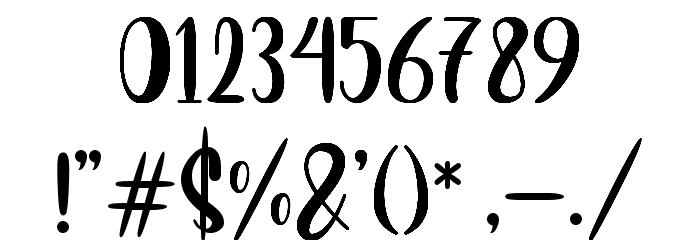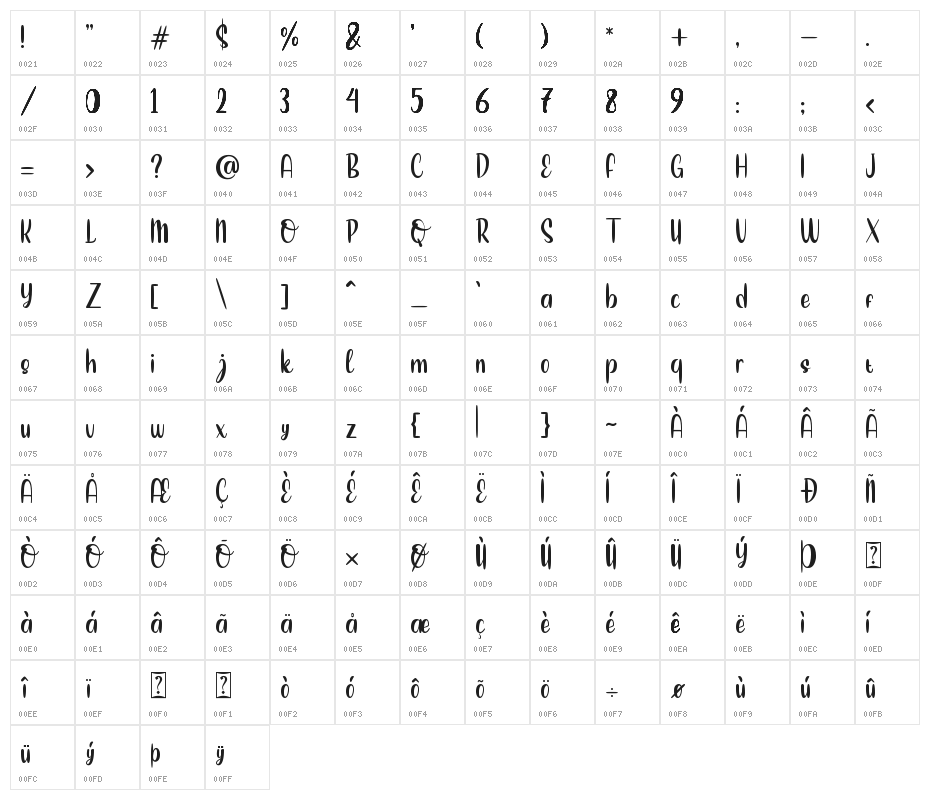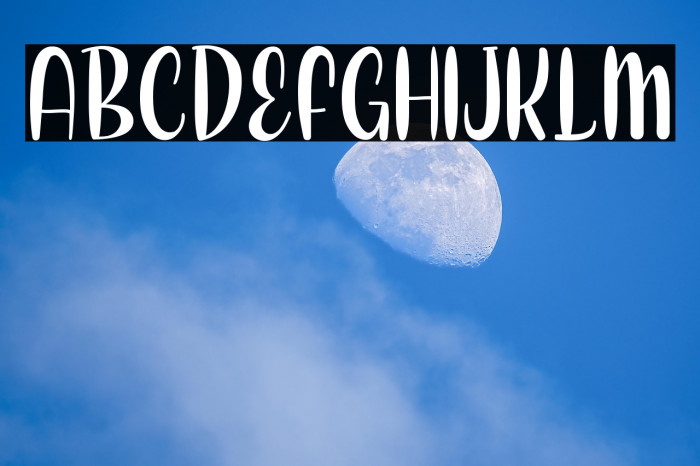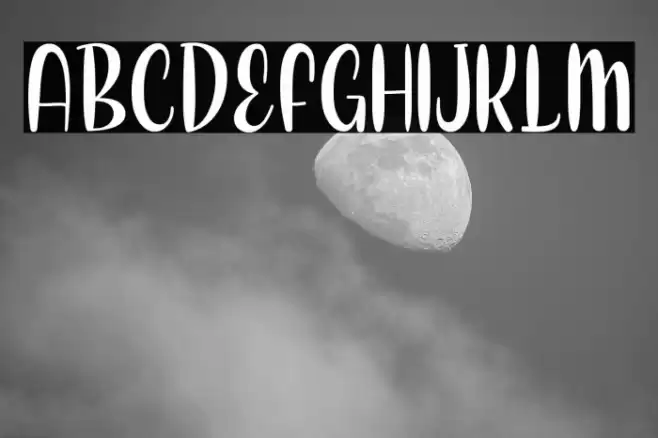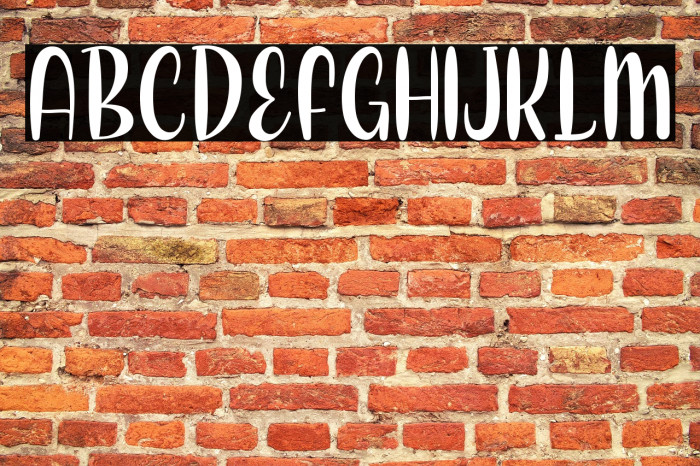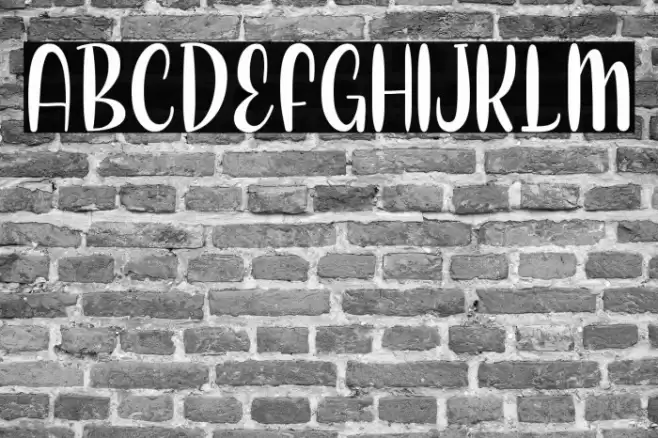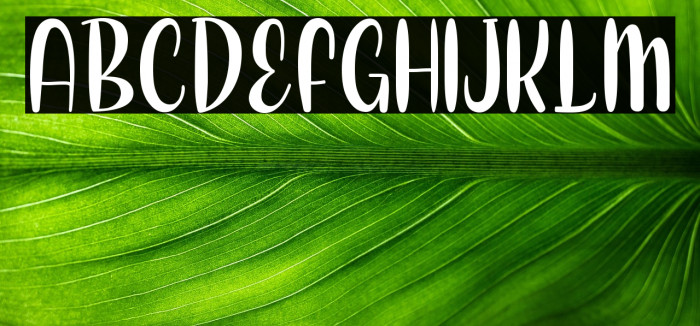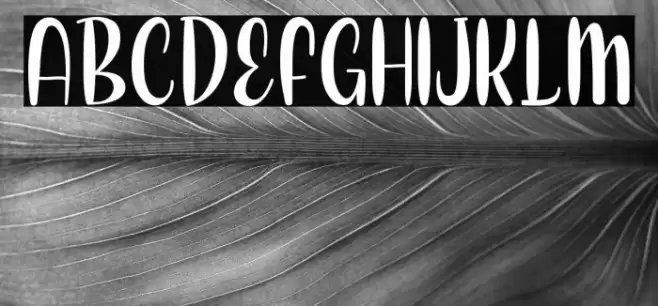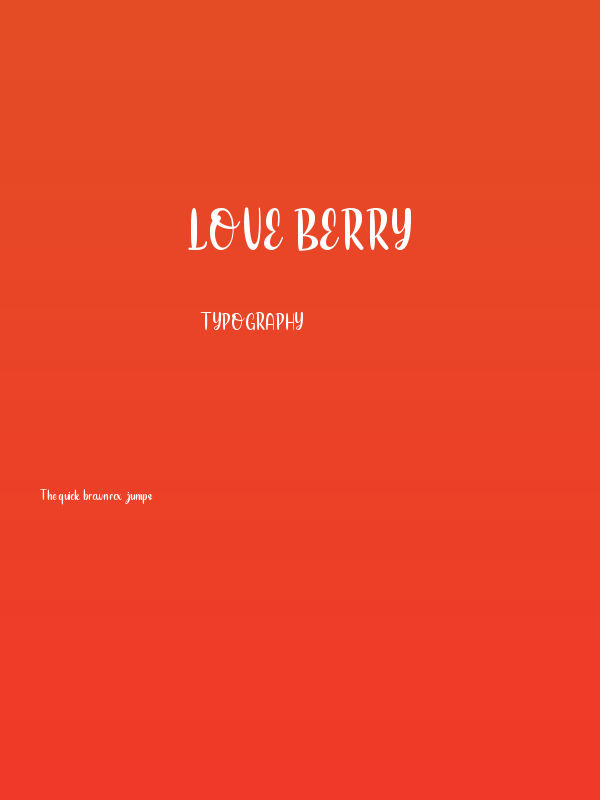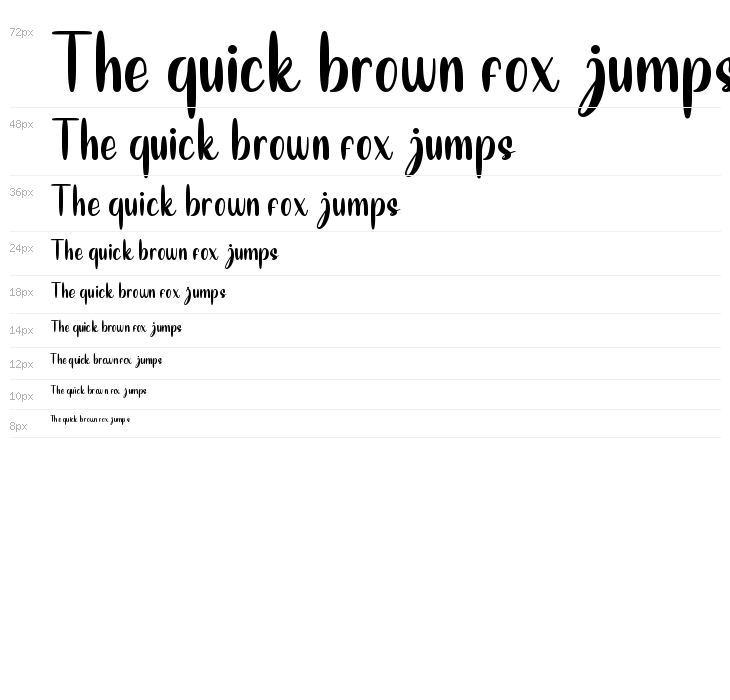
Love Berry Font
Love Berry Description
This playful and whimsical font features a unique blend of bold and flowing strokes, creating a lively and energetic appearance. The uppercase letters are characterized by their tall and slightly condensed form, with some letters exhibiting playful loops and curves. The lowercase letters maintain a consistent style, with a smooth and rounded design that complements the uppercase set. The numerals are bold and clear, ensuring readability while maintaining the font's overall playful aesthetic. Special characters are creatively designed, adding to the font's charm and versatility. This font is perfect for projects that require a fun and engaging visual impact.